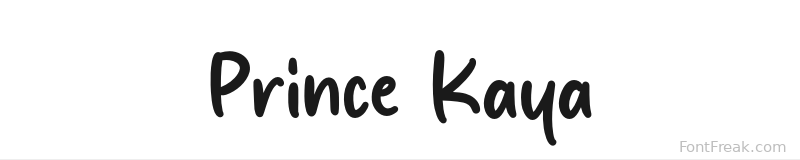
Prince Kaya
About Prince Kaya
Introducing the Prince Kaya font by MJType, a delightful addition to the world of typography. This handwritten script font captures an artistic, playful essence, making it perfect for a variety of creative projects. The Prince Kaya font features fluid, dynamic strokes that gracefully flow together, presenting a charming yet sophisticated look. The stroke weight varies throughout the letters, providing an intriguing contrast that adds depth and character to your designs. Its natural spacing ensures readability while maintaining a relaxed and inviting vibe, ideal for conveying warmth and creativity.
The versatility of Prince Kaya makes it suitable for numerous applications. It shines in wedding invitations, where its elegant yet casual style can beautifully complement the romantic theme. For restaurant menus, this font can add a touch of personality, making the dining experience feel more inviting. Additionally, it works well in branding for small businesses, helping to create a memorable identity that resonates with customers. Content creators can also leverage Prince Kaya for social media graphics, enhancing engagement with visually appealing text that draws attention.
What sets Prince Kaya apart is its ability to balance artistry and practicality. It maintains a friendly demeanor while still being sophisticated enough for professional use. Whether you are crafting a heartfelt invitation or a catchy social media post, Prince Kaya adds that perfect touch that makes your work stand out. Embrace the charm of this font and bring your creative visions to life.